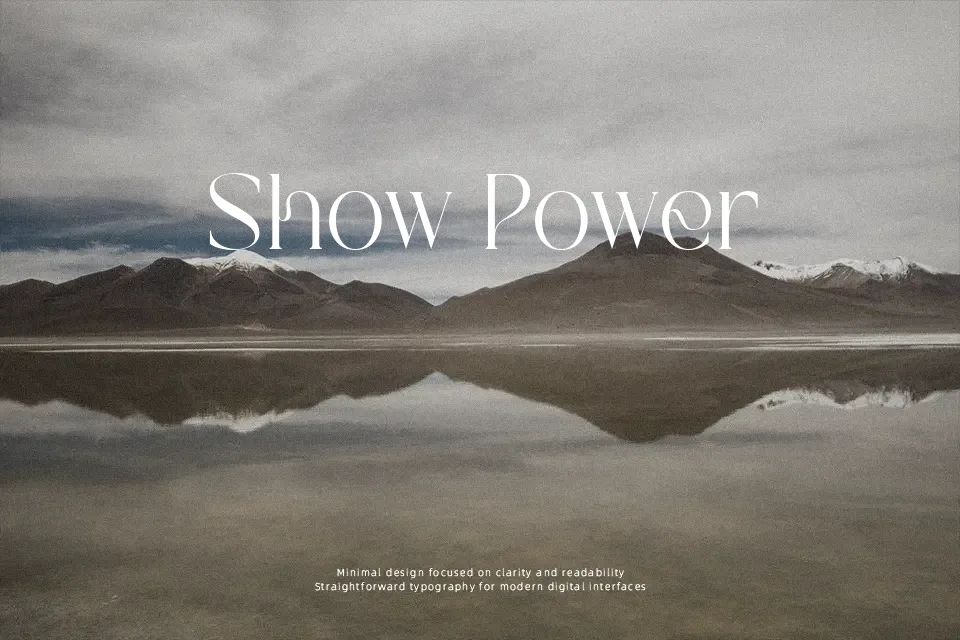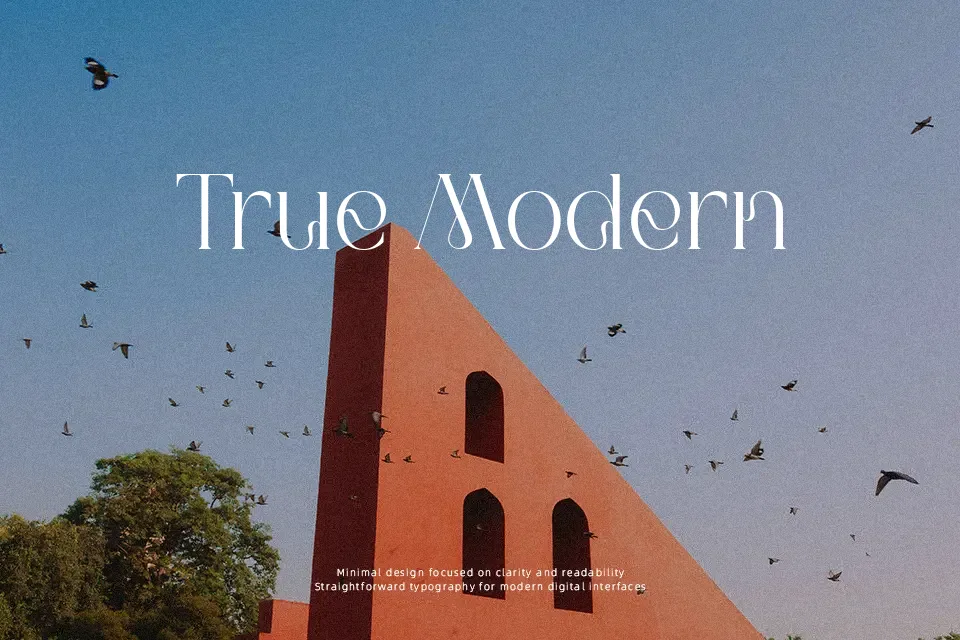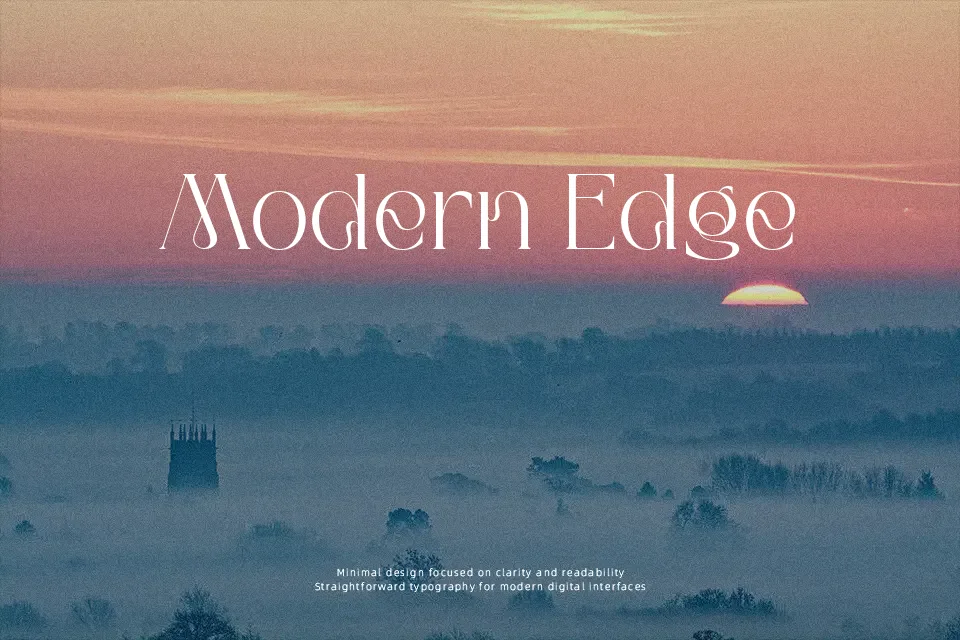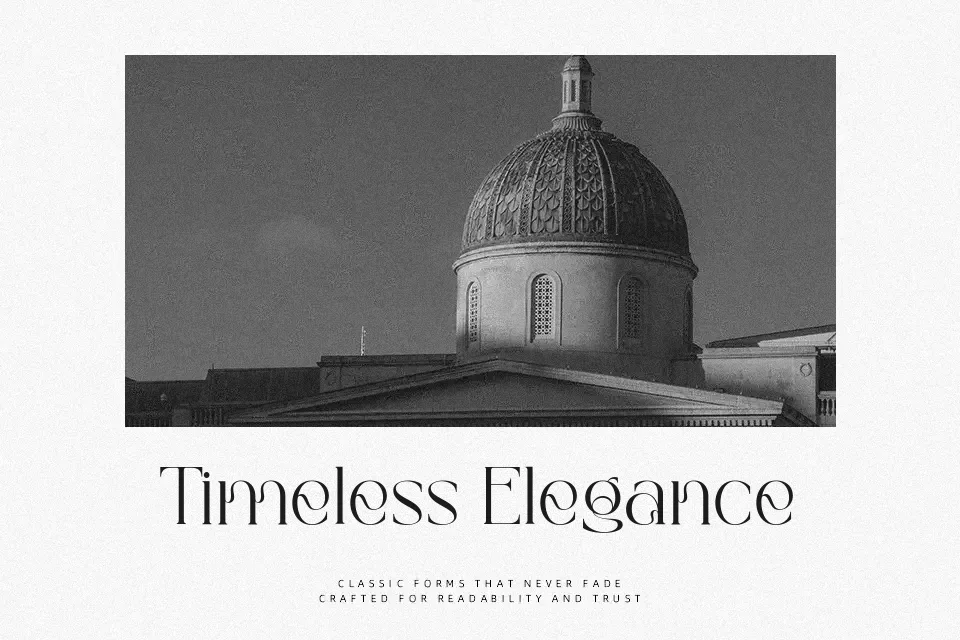
Beacon Aesthetic Font
Beacon Aesthetic is an elegant display serif with tall proportions, fine hairlines, and high-contrast strokes that give each letter a graceful, slightly feminine silhouette. Generous spacing and curving terminals create a polished, romantic feel, especially in larger sizes. It works well for fashion or beauty logos, wedding stationery suites, and premium product packaging where you want a refined, contemporary serif voice. However, its contrast and decorative alternates make it less suitable for long paragraphs or small UI text, where readability can drop. Choose it when a project needs sophistication and impact in headlines rather than dense body copy.
luxury beauty logo wordmarks
fashion or lifestyle magazine covers
wedding invitation titles and names
premium product or perfume packaging
long-form paragraph text or articles
small interface labels or app body text
highly technical or corporate documents
dense multilingual copy at small sizes
Perfect for branding, editorial, and headline, with a artistic and display style.